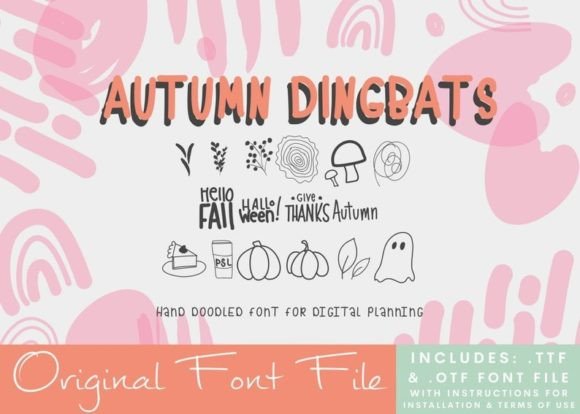
The Perfect Doodle: Meet the Autumn Dingbats Font
Have you ever been working on a design project, and suddenly, you’re stuck on finding the perfect font? I remember a recent experience where I was creating a digital planner, and I just couldn’t find the right fit. That’s when I stumbled upon the Autumn Dingbats font, and it was love at first sight! 🎉
This hand-doodled font is designed specifically for digital planning, but its versatility knows no bounds. You can use it on your computer, laptop, tablet, or even phone to add a fun, doodled look to your projects. And the best part? It’s also perfect for creating printed stickers for a physical planner.
• ✨ Unique, hand-doodled design that’s perfect for adding a personal touch to your projects
• ✅ Easy to read and understand, even at smaller font sizes
• 🎉 Extensive character set, including glyphs and stylistic alternates
• 🖌️ Works beautifully on both digital and print platforms
• 🤔 Some characters may not work well at very small font sizes (less than 10pt)
• ⚠️ Limited language support (but perfect for English-based projects)
The Story Behind Autumn Dingbats: Designer Inspiration
Autumn Dingbats was created with the intention of bringing a personal, doodled touch to digital planning. The designer, inspired by traditional hand-drawn doodles, aimed to craft a font that was both fun and functional. With its extensive character set and OpenType features, Autumn Dingbats has become a go-to font for creatives looking to add a bit of whimsy to their projects.